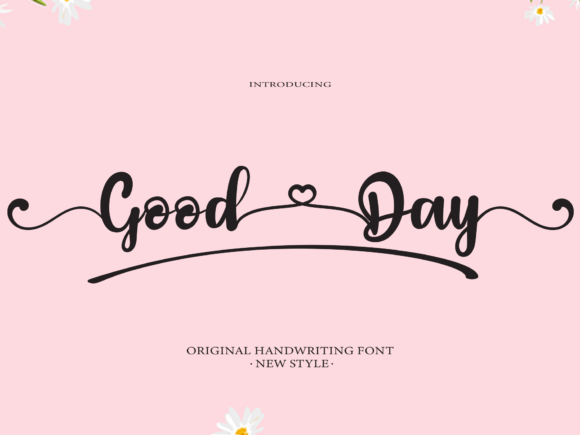
Bringing a Smile to Your Designs
Do you remember that feeling when you stumbled upon a font that just clicked with your project? The words flowed effortlessly, and the design came alive. It’s those moments that make all the difference in a designer’s life. For many creatives, finding the right font can be a daunting task, but what if I told you about a font that’s sure to brighten up your day?
Meet the Good Day Font, a charming handwritten font crafted with love and care to bring warmth to your designs. Whether you’re working on a greeting card, a food blog, or a children’s book, this font is the perfect companion to help you create something truly special.
For designers, having the right tools at their disposal is crucial, and the Good Day Font is definitely a valuable addition to any design toolkit. Its versatility and friendly nature make it a go-to choice for many creatives, and we can’t wait to share its story with you.
Good Day Font Key Features
- Unique Characteristics: The Good Day Font features a unique blend of modern and classic elements, with a friendly and approachable feel that makes it perfect for use in a variety of contexts.
Designer Review: Good Day Font
Overall, I think Good Day Font has some great qualities, but it’s not without its flaws.
- Open and Friendly Feel: The Good Day Font is incredibly approachable and perfect for creating a welcoming atmosphere.
- Legibility: This font is highly legible, even at smaller sizes, making it ideal for body text.
- Good for Digital Use: The Good Day Font is optimized for digital use, ensuring it looks great on various devices and screen sizes.
- Lack of Distinctiveness: While the font is friendly, it’s not particularly unique or memorable, which might make it harder to stand out.
- Not Suitable for Headlines: Due to its rounded edges and subtle curves, the Good Day Font may not be the best choice for bold, eye-catching headlines.
- Not as Versatile as Some Other Fonts: The Good Day Font works well in specific contexts, but it might not be the best choice for more complex, detailed designs.
Overall, I’d say the Good Day Font is a solid choice for everyday use, but it may not be the best fit for every project. With some careful consideration of its limitations, it can be a valuable addition to your design toolkit.
Good Day Font: A Practical Application Guide
Tips for Getting the Most Out of Good Day Font
Use Good Day Font in combination with other elegant fonts to create a harmonious typography. Experiment with different font sizes and styles to add visual interest to your designs. Consider using Good Day Font for titles and headings, reserving other fonts for body text.
Common Use Cases for Good Day Font
Good Day Font is ideal for creating professional-looking documents, presentations, and designs. Use it for business cards, resumes, and other materials that require a touch of sophistication. It’s also great for creating elegant titles, headings, and body text in various design projects.
What is the recommended font size and line height for the Good Day Font?
The recommended font size for the Good Day Font is between 12pt and 24pt, with a line height of at least 1.2 times the font size. This will ensure optimal readability and legibility of the font in various design applications.